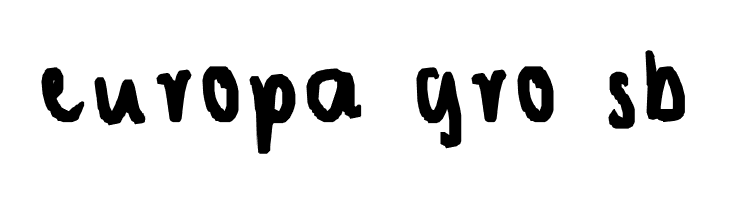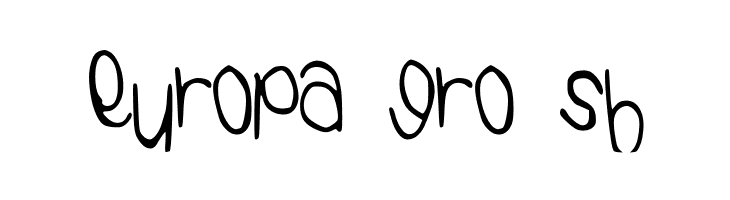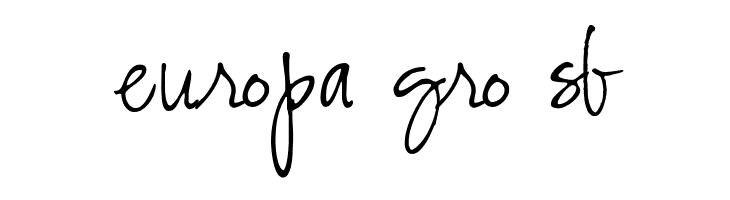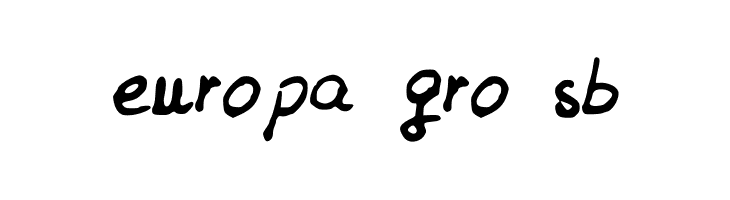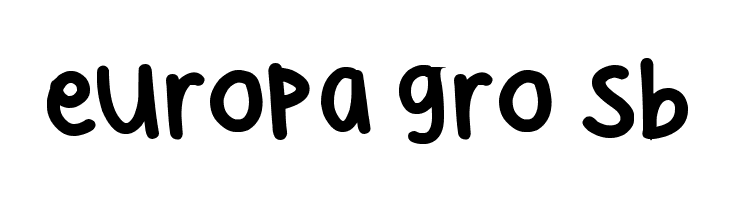
A playful, bold font with rounded characters and a friendly style.
Playful, rounded handwritten font.
A playful, hand-drawn font with tall, narrow letters and a whimsical style.
A playful, casual handwritten font with smooth, rounded strokes.
A playful, handwritten font with smooth, rounded edges and a casual feel.
A playful handwritten font with an organic, casual style.
A playful, handwritten font with smooth curves and a casual, friendly style.
A playful, handwritten font with rounded edges and consistent thickness.
A bold, cursive script with a hand-drawn, textured appearance.
A cursive, italic font with elegant, flowing lines and a handwritten appearance.
A bold, playful handwritten font with expressive strokes and a lively aesthetic.
An elegant script font with fluid, cursive strokes and interconnected letters.
Handwritten cursive script font.
A playful, handwritten font with fluid strokes and dynamic character.
A playful, hand-drawn font with a bold, rounded style and informal charm.
Elegant handwritten script font with dynamic strokes.
Bold, expressive handwritten font.
A bold, playful font with a comic book style and hand-drawn feel.
A playful, handwritten font with a comic-like, informal style.
A casual, handwritten font with a playful and informal style.
A playful, handwritten font with a casual and dynamic style.
Playful handwritten font with tall, narrow characters.